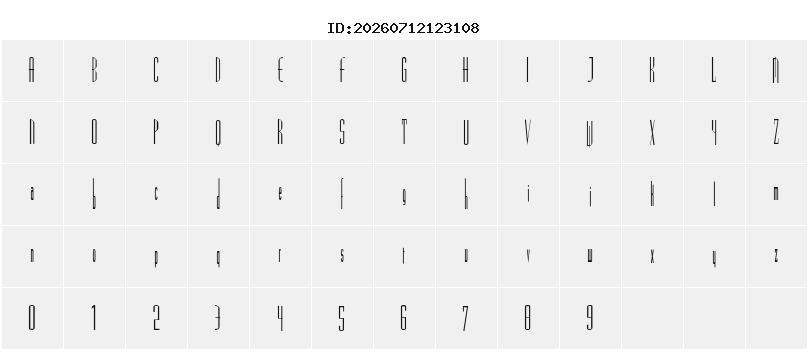
About Madrid2Plain.ttf
Madrid2Plain.ttf is a modern, elegant sans-serif font designed for ultimate readability and visual harmony. Perfect for branding, headlines, web design, and print materials.